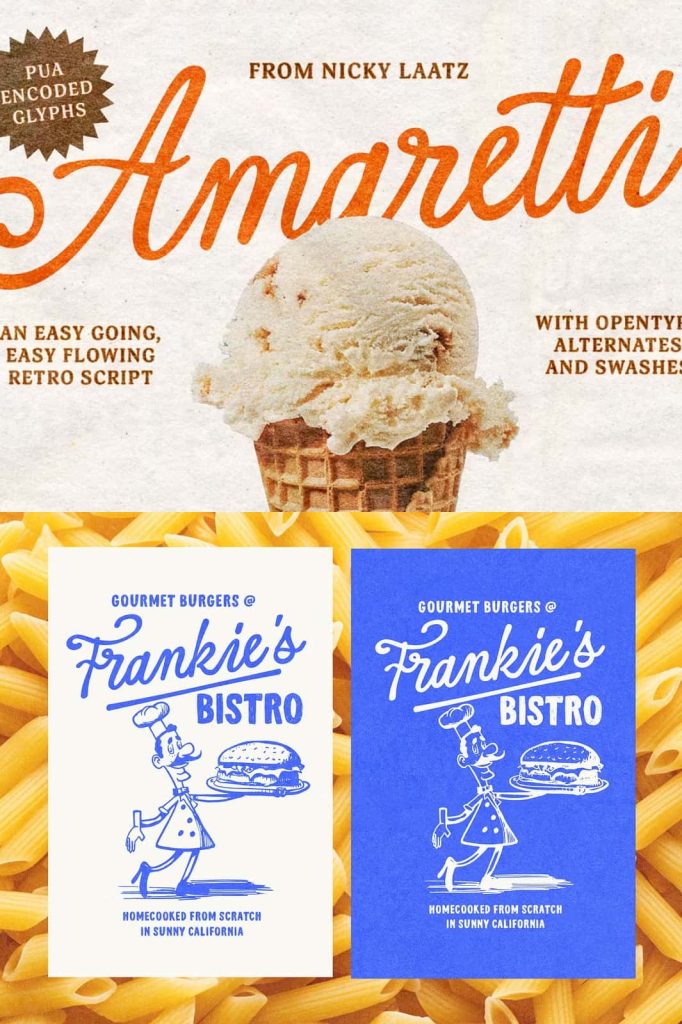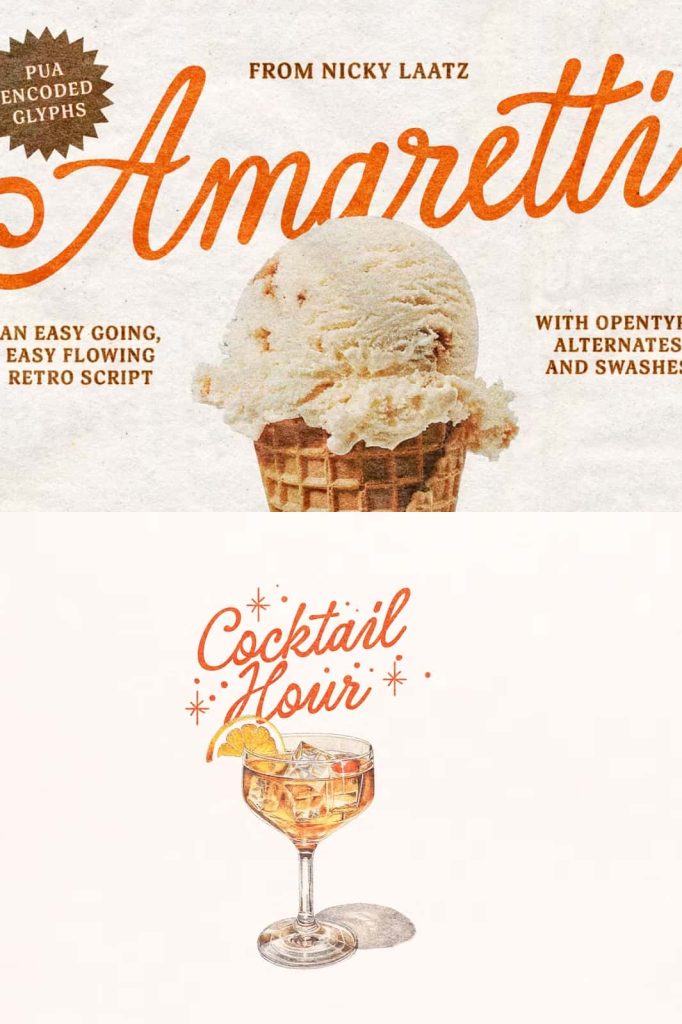
Amaretti TypefaceleastedDecember 19, 2024Fonts Say hello to Amaretti! A smooth calligraphic script that was designed to be reminiscent of vintage hand-lettered advertising Download